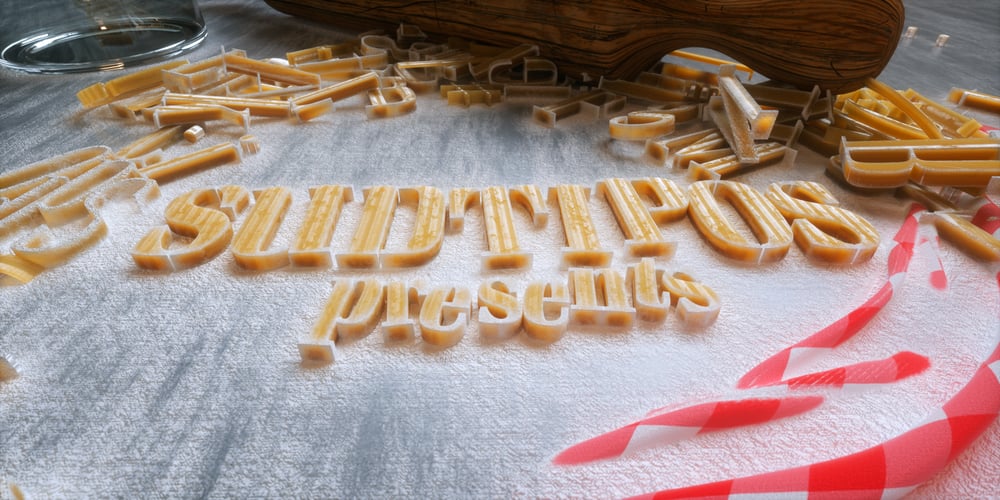
Rigatoni Font Family was designed by Alejandro Paul and published by Sudtipos. Rigatoni contains 12 styles and family package options. Rigatoni is a didone display family with exceptional readability. Based on a German mid-century lettering specimen by Nerdinger, designer Alejandro Paul expanded the face into an extensive family, with 5 weights, italics, and a 2 weights stencil version. Its tall letterforms and sturdy serifs give it a noble bearing when set in all caps; in the lower case its large x-height and spacious counters imbue it with a welcoming tone. A plethora of alternate and swash characters let you create distinctive settings for identities, labels, titles, and headlines. Use the shorter ascender and descender variants for aesthetic effects, or to prevent collisions in tightly stacked text. Since we’ve imagined Rigatoni being used for restaurants, menus, and food packaging, Sudtipos asked to designer Esteban Diácono to create some 3D visualizations. Ale’s type has never looked saucier!